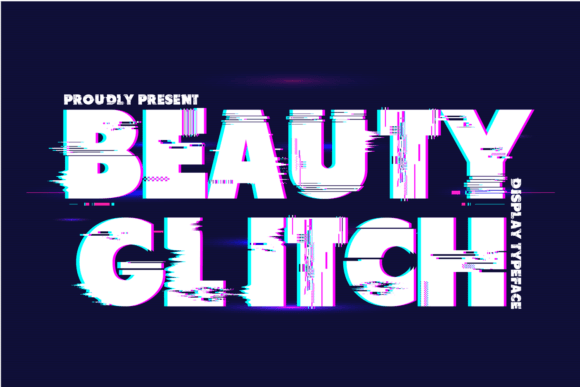
Introducing the Beauty Glitch Font, the ultimate font for creating captivating and eye-catching designs that will make your brand stand out from the competition. Created by the talented team at 177Studio, this font is perfect for anyone in search of the best font for a beauty logo.
Beauty Glitch Font is a sans serif typeface that combines bold and italic styles with a unique glitch effect. Each letter has been individually distorted, creating a mesmerizing and futuristic look inspired by science fiction movies and games. With its highly detailed and high-resolution effects, this font will effortlessly transform any ordinary text into a stunning glitch masterpiece.
Whether you're designing a poster, logo, magazine, cover, banner, t-shirt, header, or even large-scale artwork, Beauty Glitch Font is the perfect choice. Its versatility and adaptability make it suitable for any project, allowing you to unleash your creativity and make a lasting impression on your audience.
Stand out from the crowd with this one-of-a-kind font that combines the elegance of a sans serif typeface with the edginess of a glitch effect. Capture the attention of your target audience and leave a lasting impression with every design you create.